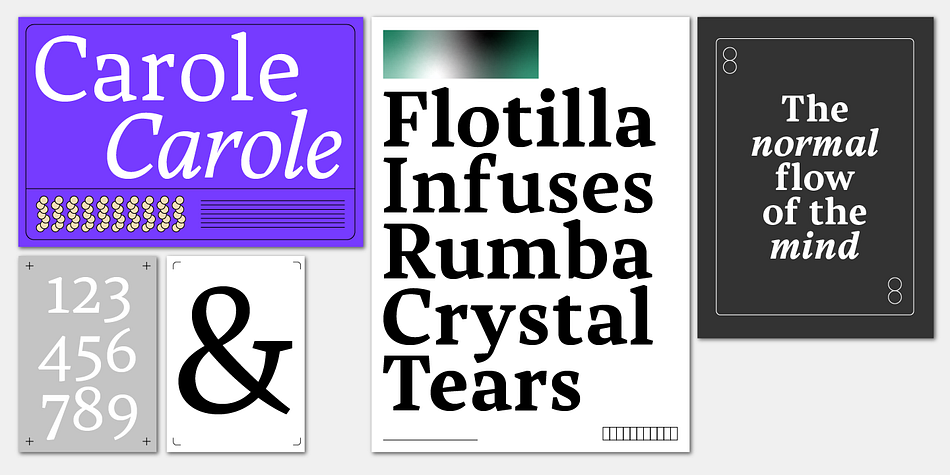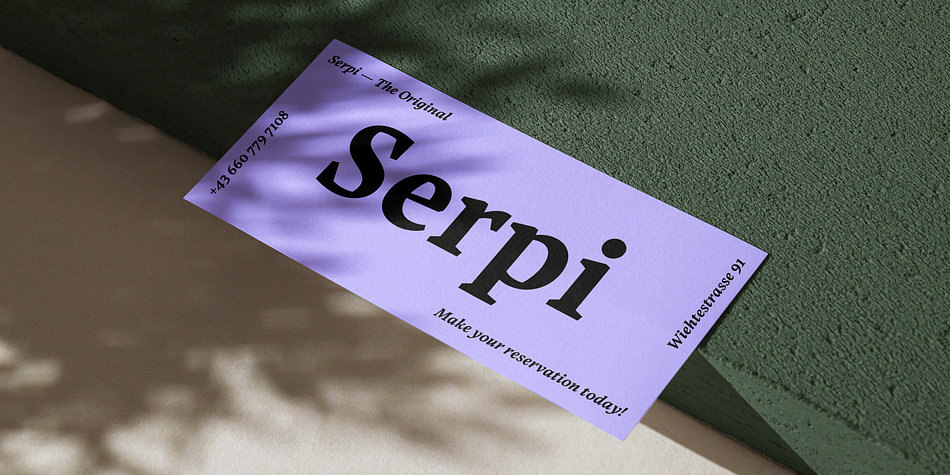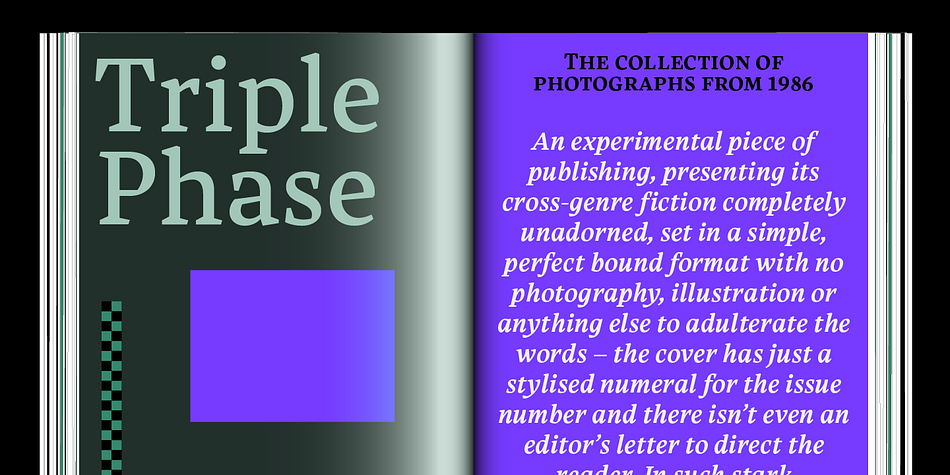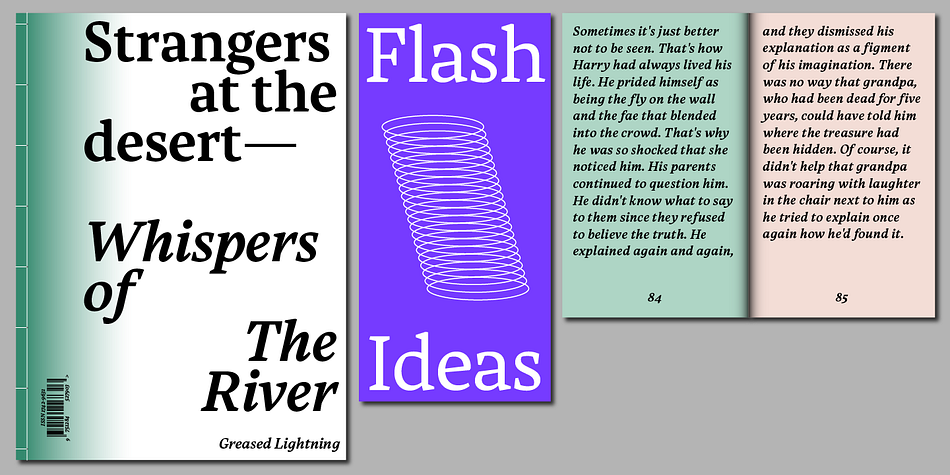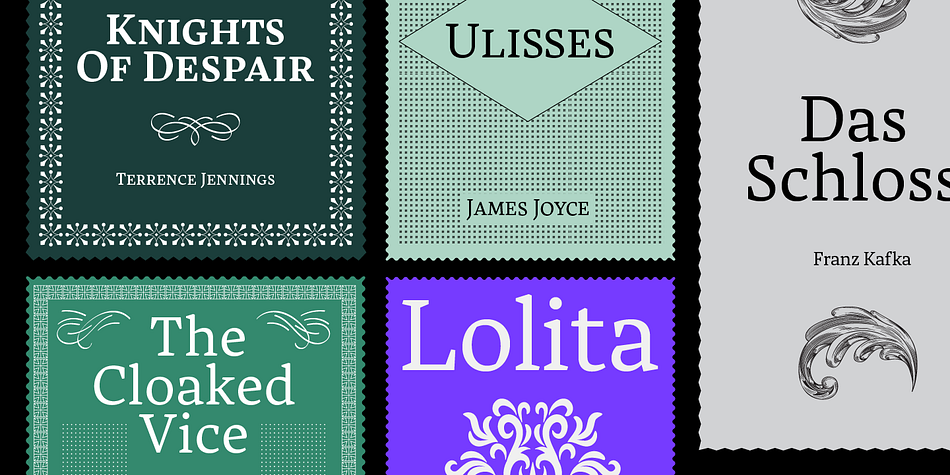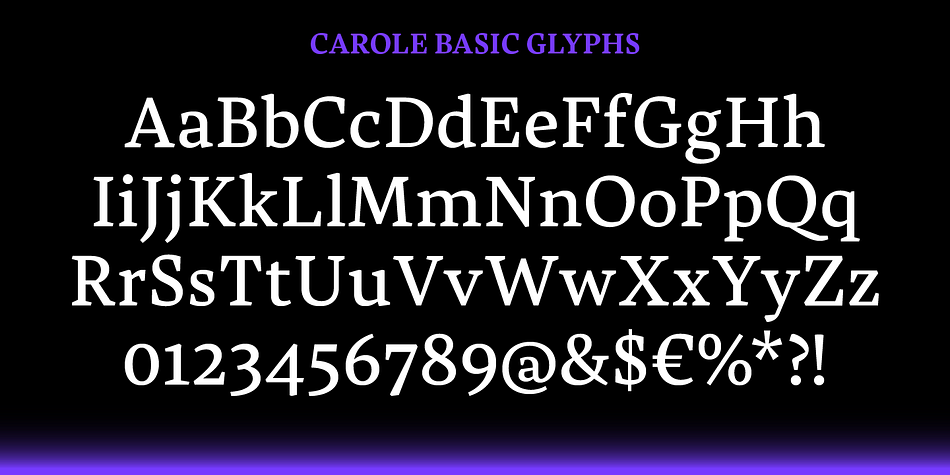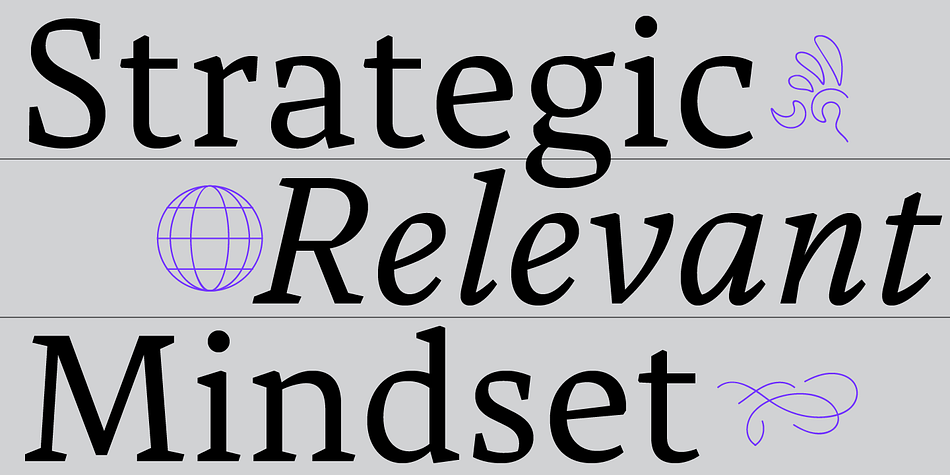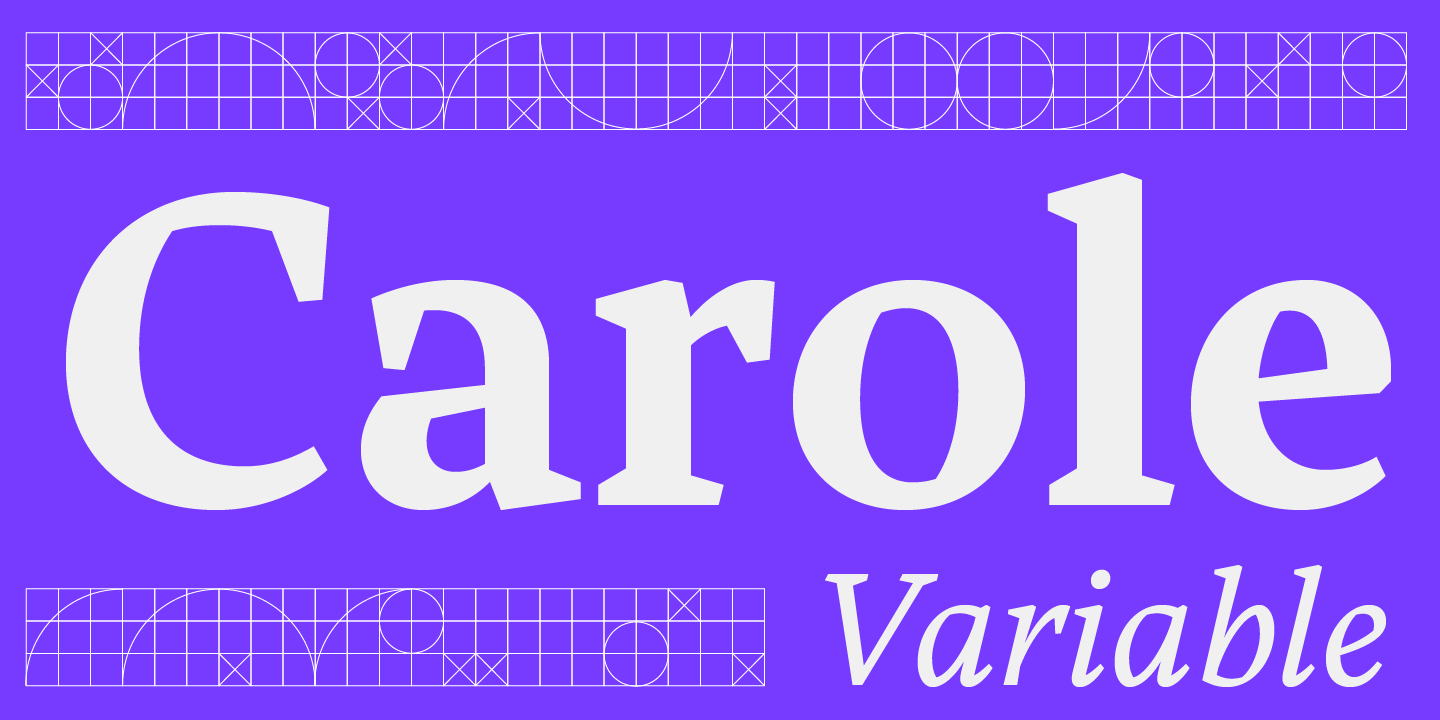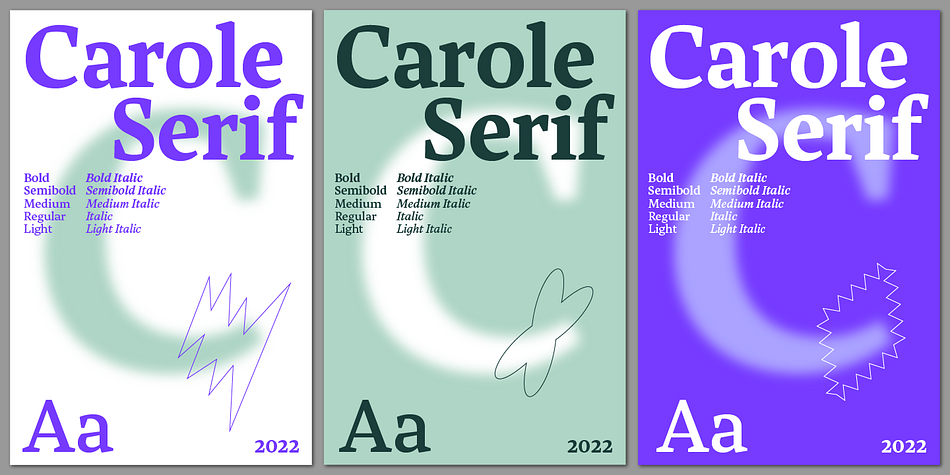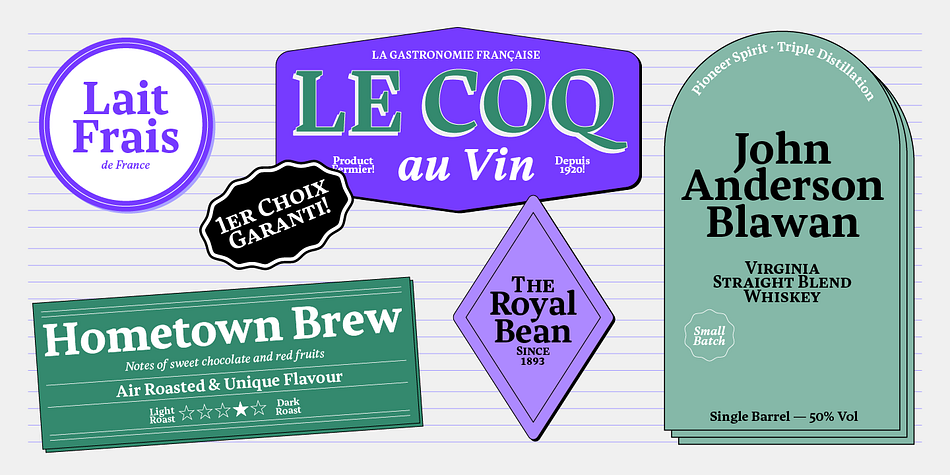
Carole Serif Variable
Designed by Matz Gasser and Lisa Schultz, Carole Serif Variable is a serif font family. This typeface has two styles and was published by Schriftlabor.
Carole is an interpretation by Matz Gasser of the old-style serif model. It explores the early serif typefaces and how handwriting still had a significant influence on the shapes. The result is a dynamic serif text font to use in small sizes and make reading comfortable. It was designed to work for text sizes, but you might find it in packaging or food brands because of its robust design features.